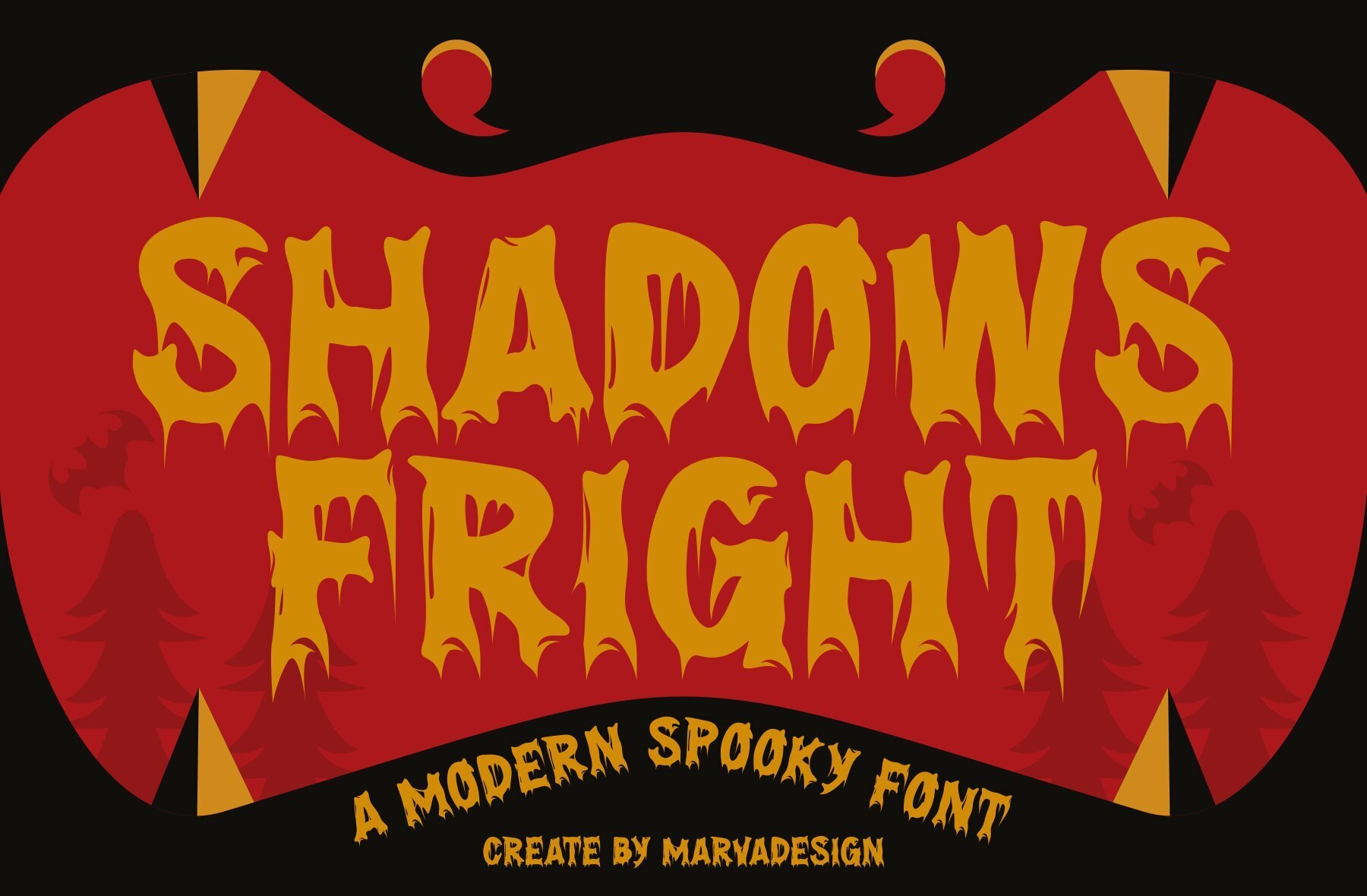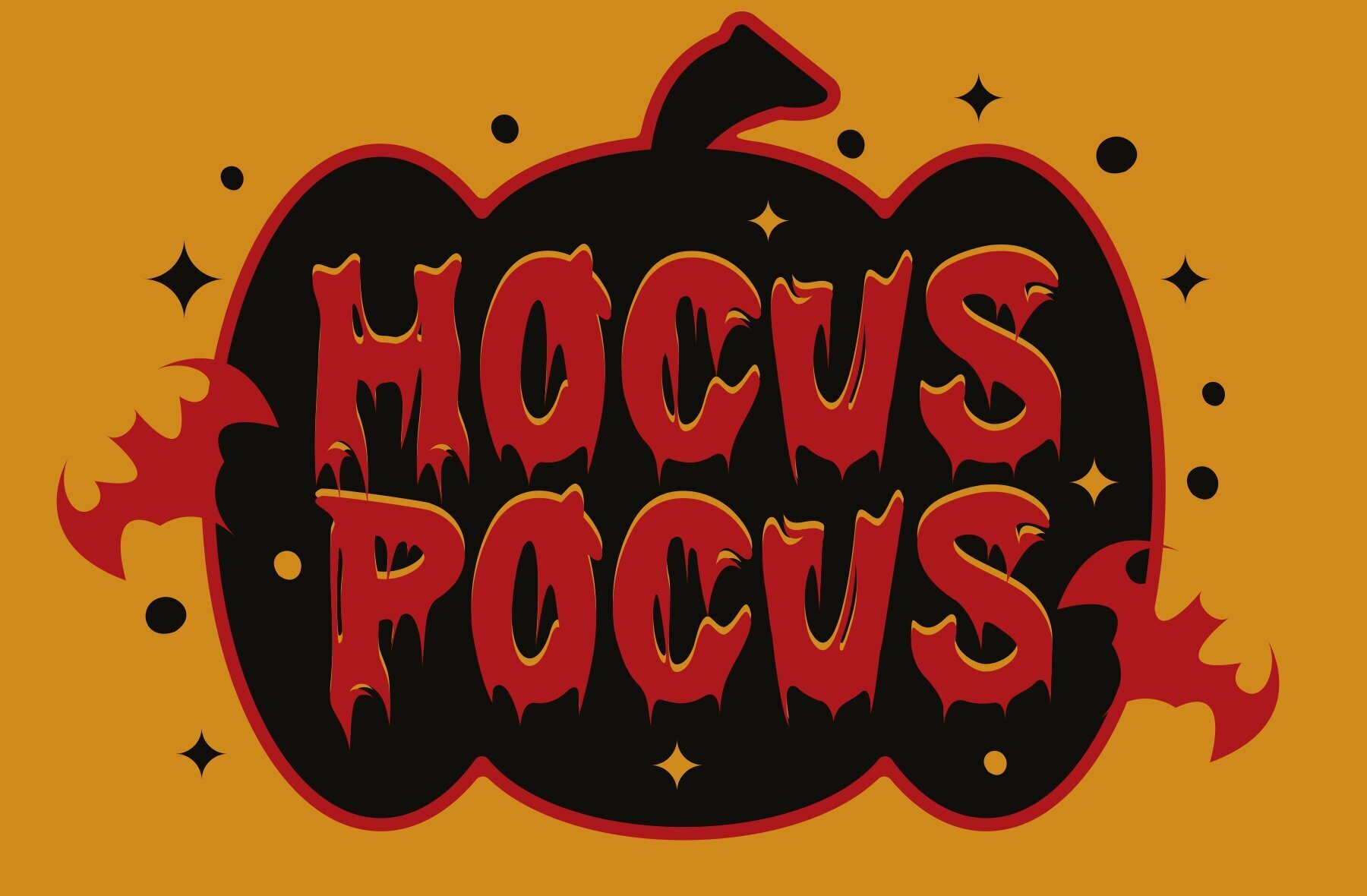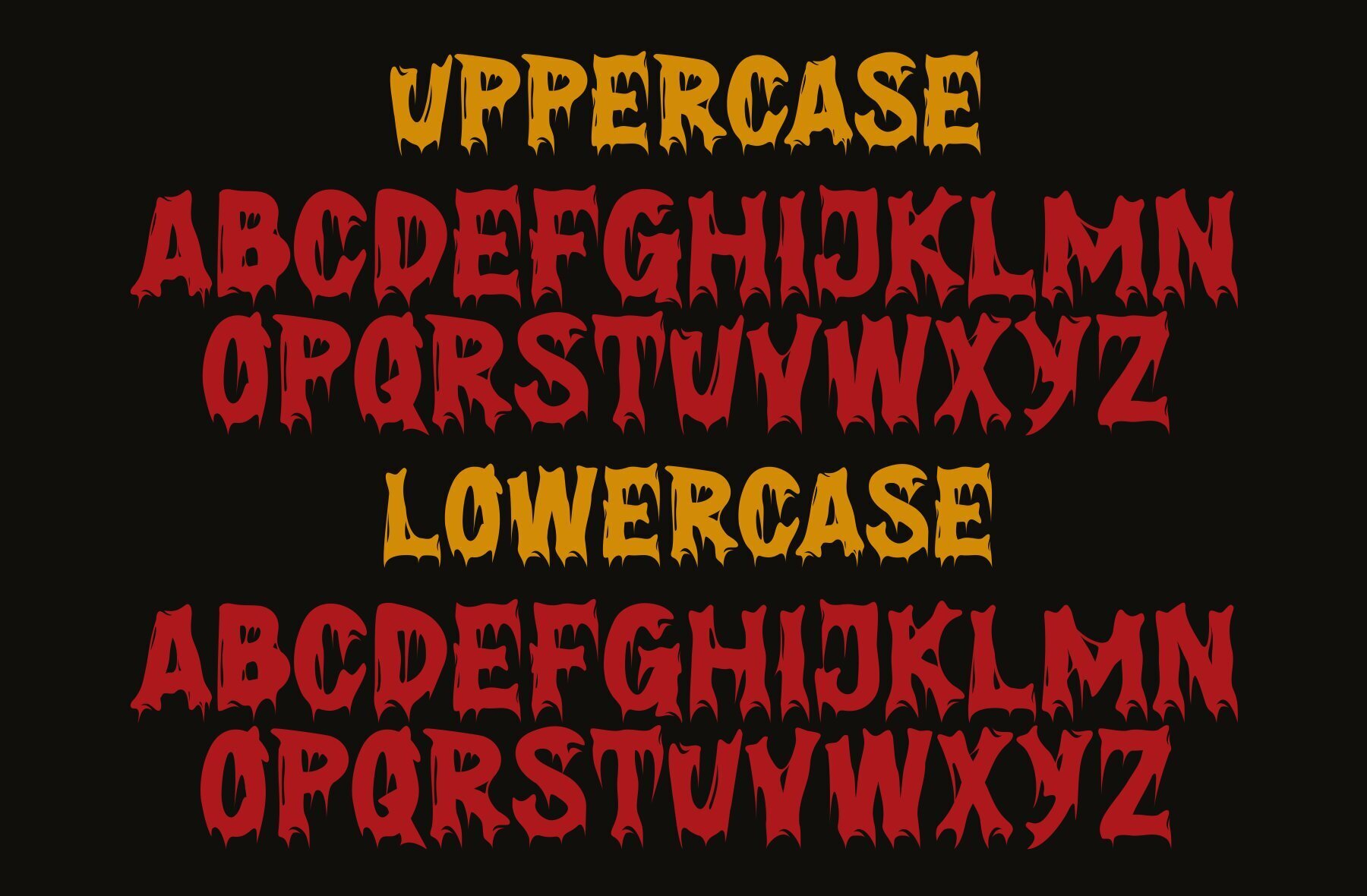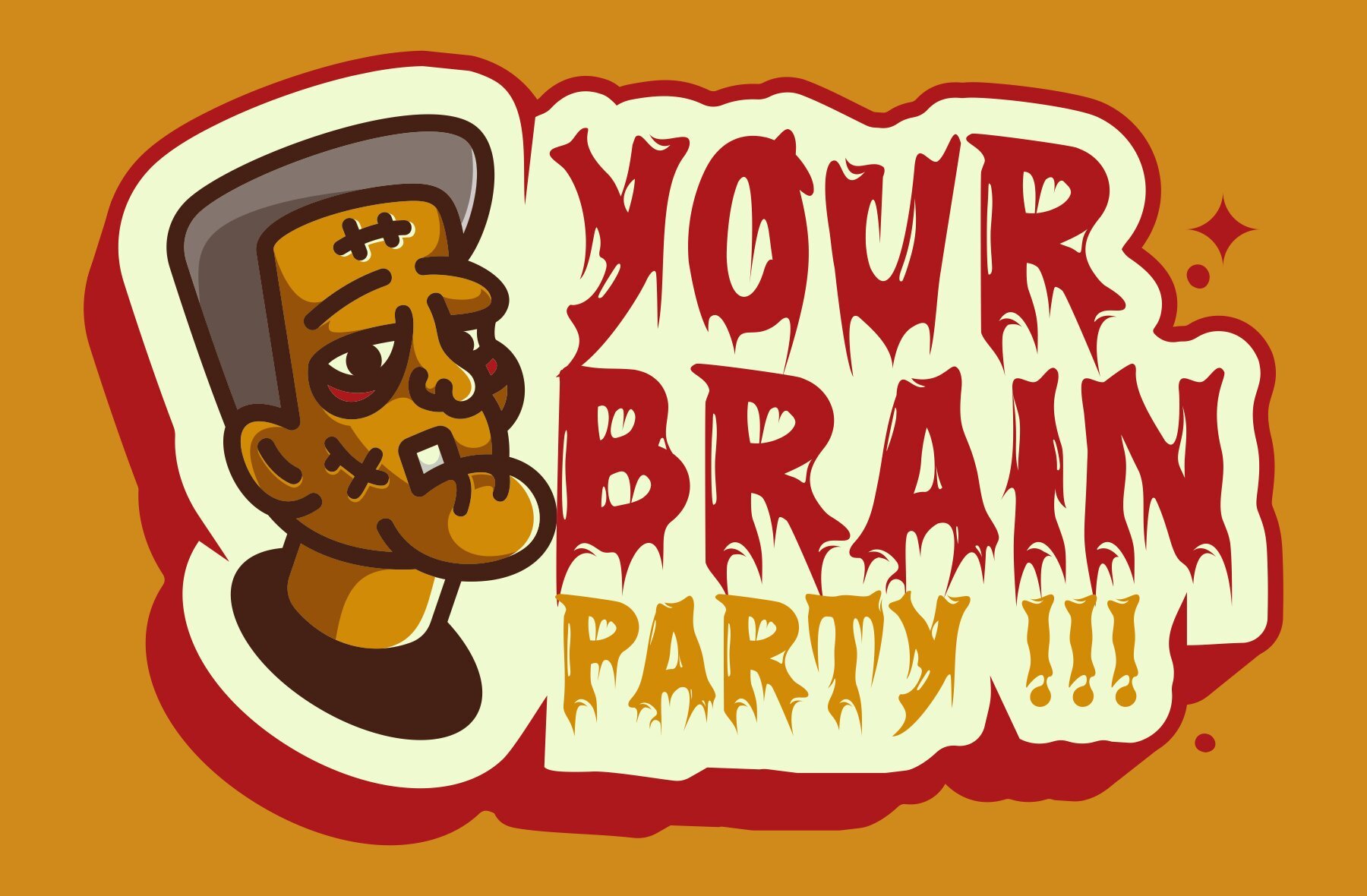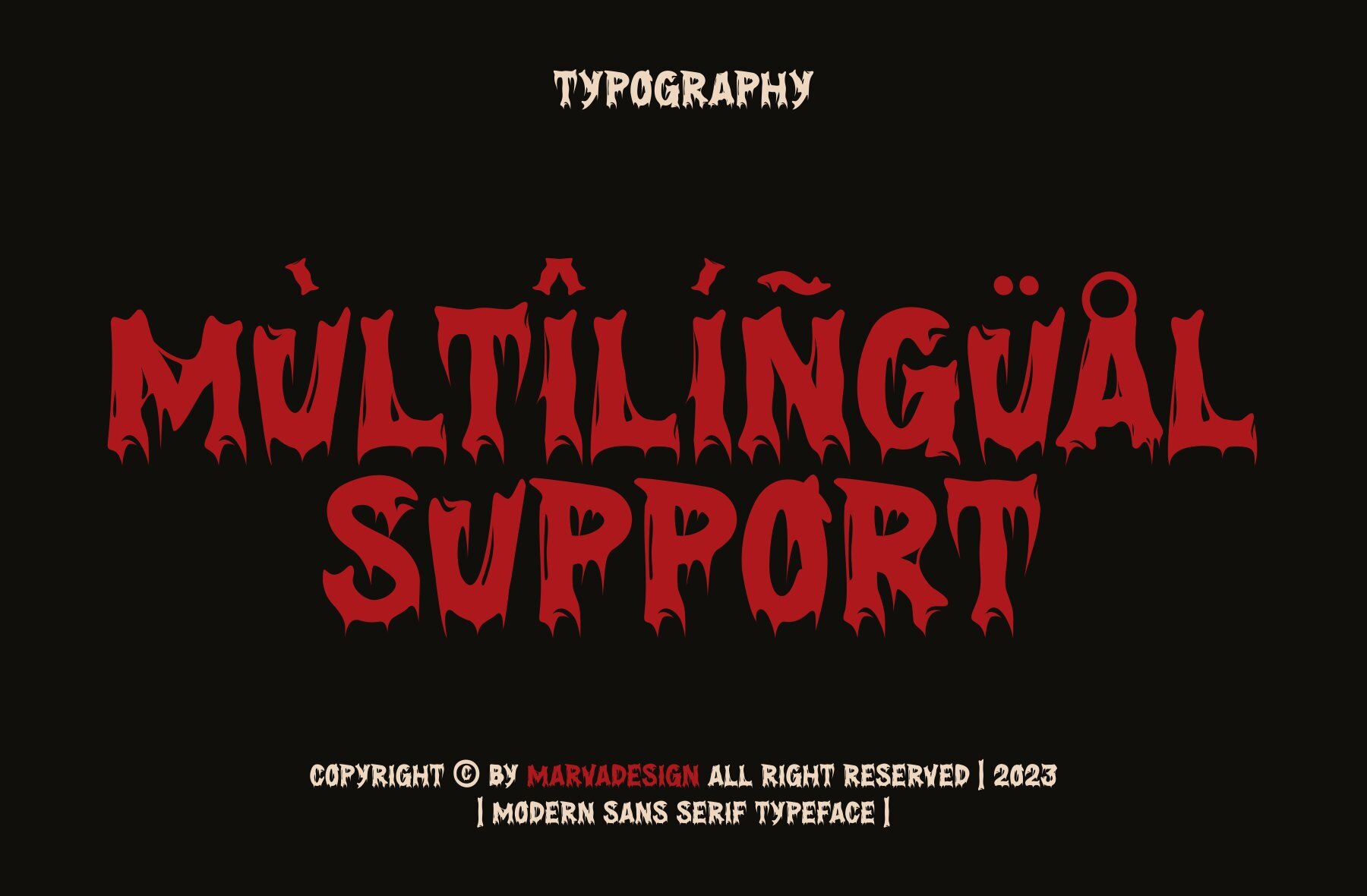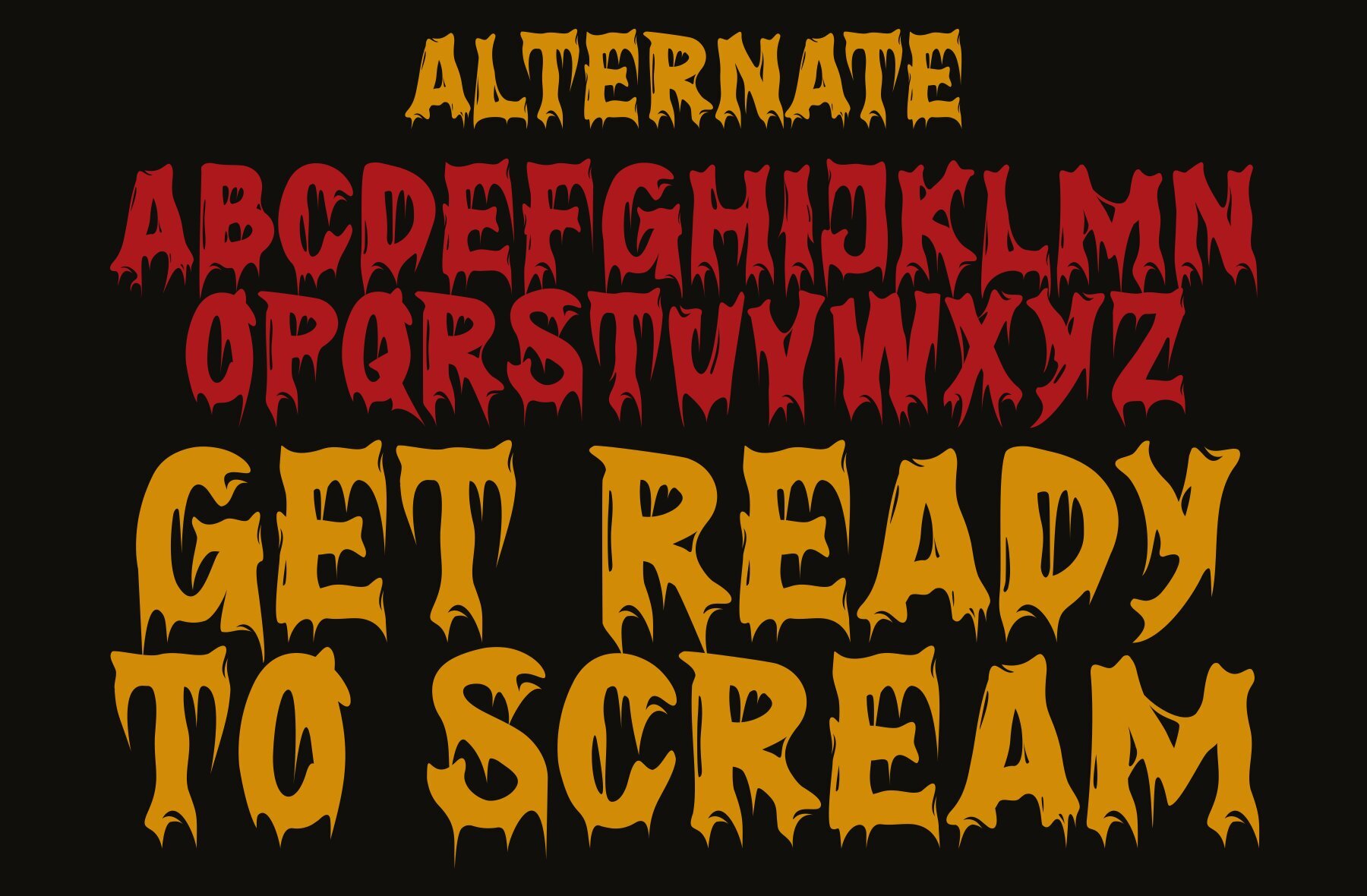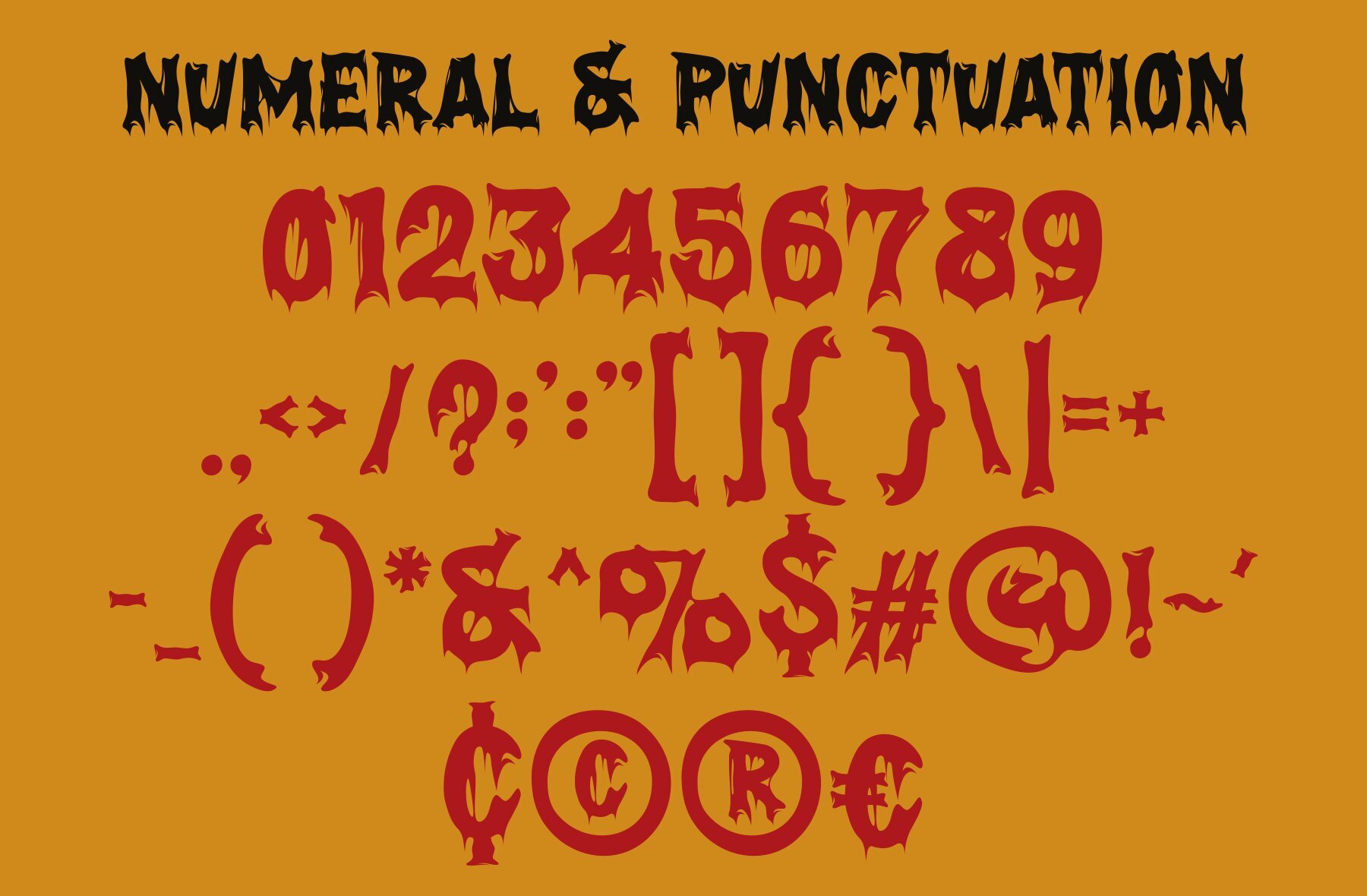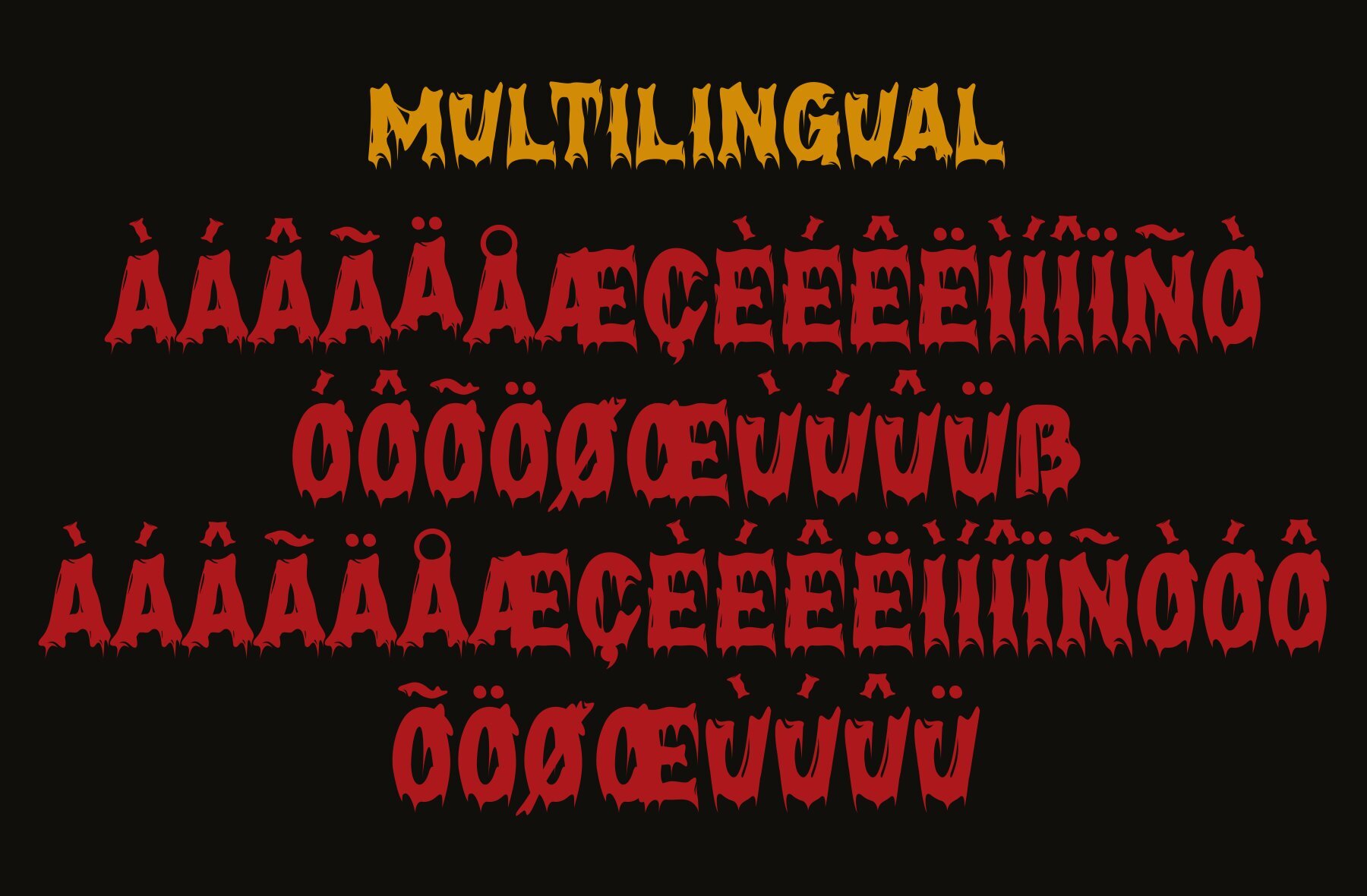
Shadows Fright: Bold Display Font for Modern Branding
Shadows Fright is a bold and authentic display font designed to stand out across various branding projects. Its versatility makes it ideal for logos, templates, product designs, and more, providing a striking presence in any context.
• Uppercase Letters – Emphasize strength and impact.
• Lowercase Letters – Perfect for creating a cohesive look.
• Multilingual Support – Accommodates diverse linguistic needs.
• Alternative Styles – Offers versatility in design.